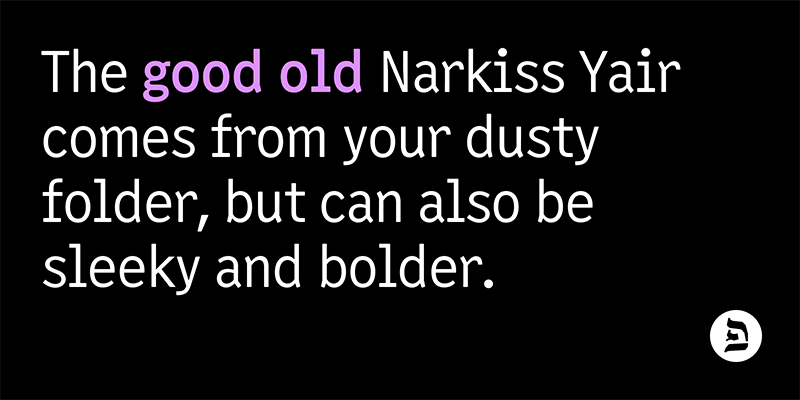
Narkiss Yair Variable Font Free Download is a sophisticated Hebrew typeface that merges traditional letterform heritage with modern typographic technology. Designed with precision and elegance, it is especially well-suited for editorial layouts, books, cultural publications, branding, and any project where refined, readable Hebrew typography is essential.
As a variable font, Narkiss Yair offers a wide range of weight variations—from light and airy to bold and impactful—all within a single font file. This allows designers to create dynamic, responsive layouts that adapt beautifully across different formats and screen sizes.
The design of Narkiss Yair Variable Font Free Download is rooted in the classic Narkiss type family, beloved for its clarity and timeless elegance. Its updated form maintains the familiar character of the original while optimizing it for modern usage—perfect for digital reading environments, multilingual typesetting, and high-quality print.
Blending legacy and innovation, Narkiss Yair is more than just a typeface—it’s a refined expression of Hebrew typographic culture brought into the future with flexibility and finesse.